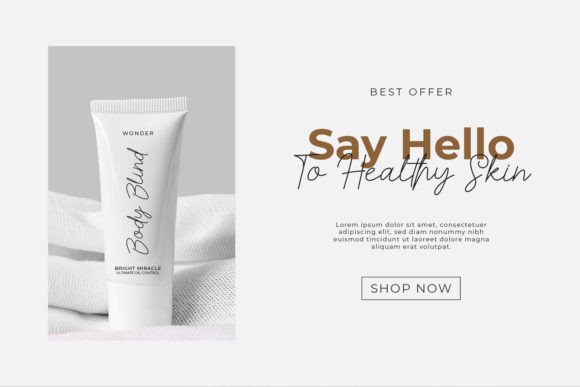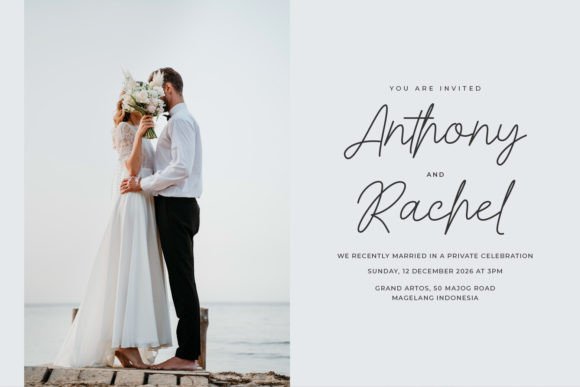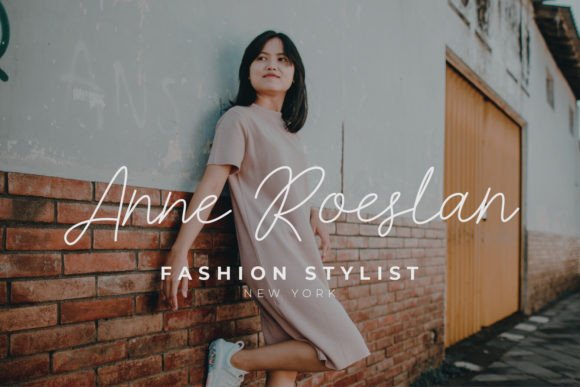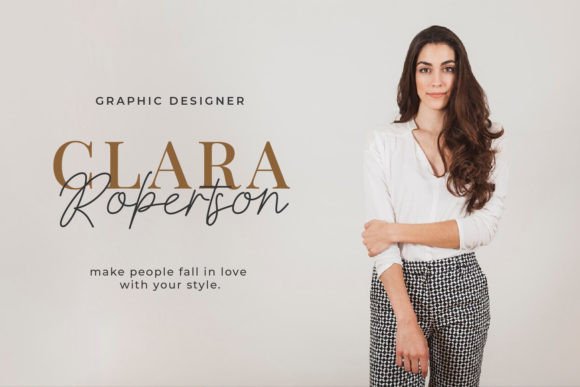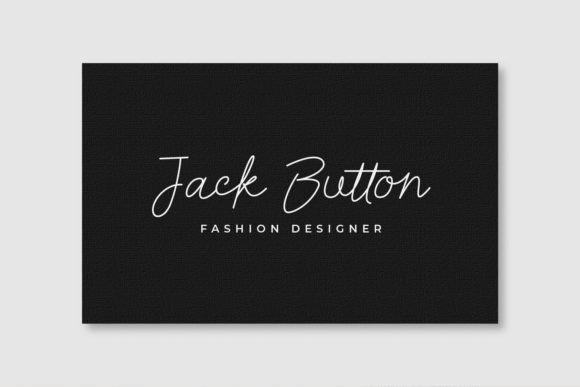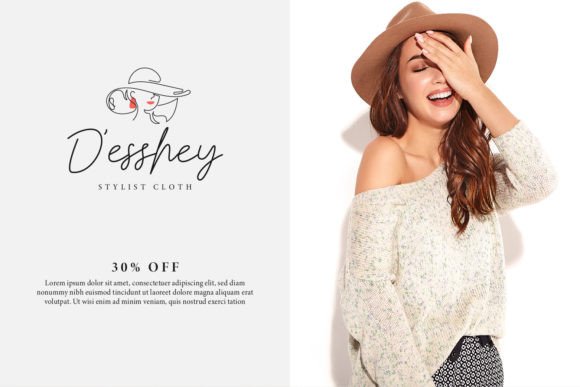
Introducing Cathely Script Handwritten: Elevate Your Designs with Elegant Calligraphy
Are you looking for a font that can add a touch of sophistication and personalization to your digital creations? Look no further than Cathely Script Handwritten, a captivating font that brings the charm and elegance of handwritten calligraphy to your designs. With its flowing strokes, graceful curves, and authentic handwritten style, Cathely Script Handwritten is the perfect choice for designers and crafters who want to elevate their projects to the next level.
The Beauty of Handwritten Calligraphy
Cathely Script Handwritten is a versatile font that is inspired by the beauty of handwritten calligraphy. Its flowing strokes and elegant curves give it a unique and sophisticated look that is perfect for a variety of design projects. Whether you’re creating wedding invitations, logos, marketing materials, or social media graphics, Cathely Script Handwritten adds a touch of personalization and elegance that sets your designs apart.
Uses for Cathely Script Handwritten
Cathely Script Handwritten is a versatile font that can be used for a wide range of design projects, including:
- Wedding invitations and stationery: Add a touch of elegance and sophistication to your wedding designs with Cathely Script Handwritten.
- Logos and branding: Create a unique and memorable brand identity with Cathely Script Handwritten.
- Marketing materials: Elevate your marketing materials, such as brochures and flyers, with the elegant and sophisticated look of Cathely Script Handwritten.
- Social media graphics: Add a touch of personality and style to your social media graphics with Cathely Script Handwritten.
- Product packaging: Make your product packaging stand out with the unique and elegant look of Cathely Script Handwritten.
Why Choose Cathely Script Handwritten?
There are many reasons why Cathely Script Handwritten is the perfect choice for designers and crafters, including:
- Unique and elegant look: Cathely Script Handwritten has a unique and elegant look that adds a touch of sophistication to any design.
- Versatile: Cathely Script Handwritten can be used for a wide range of design projects, from wedding invitations to product packaging.
- High-quality design: Cathely Script Handwritten is designed to the highest standards, ensuring that your designs look professional and polished.
If you’re looking for a font that can add a touch of elegance and sophistication to your digital creations, look no further than Cathely Script Handwritten. With its flowing strokes, graceful curves, and authentic handwritten style, Cathely Script Handwritten is the perfect choice for designers and crafters who want to elevate their projects to the next level. Whether you’re creating wedding invitations, logos, marketing materials, or social media graphics, Cathely Script Handwritten is the perfect choice.